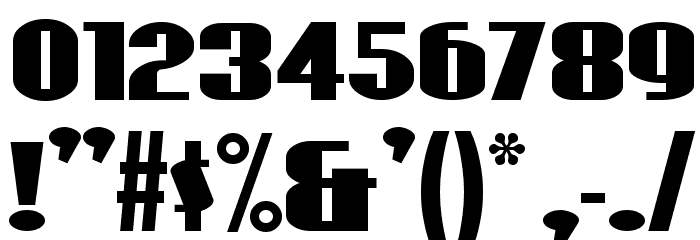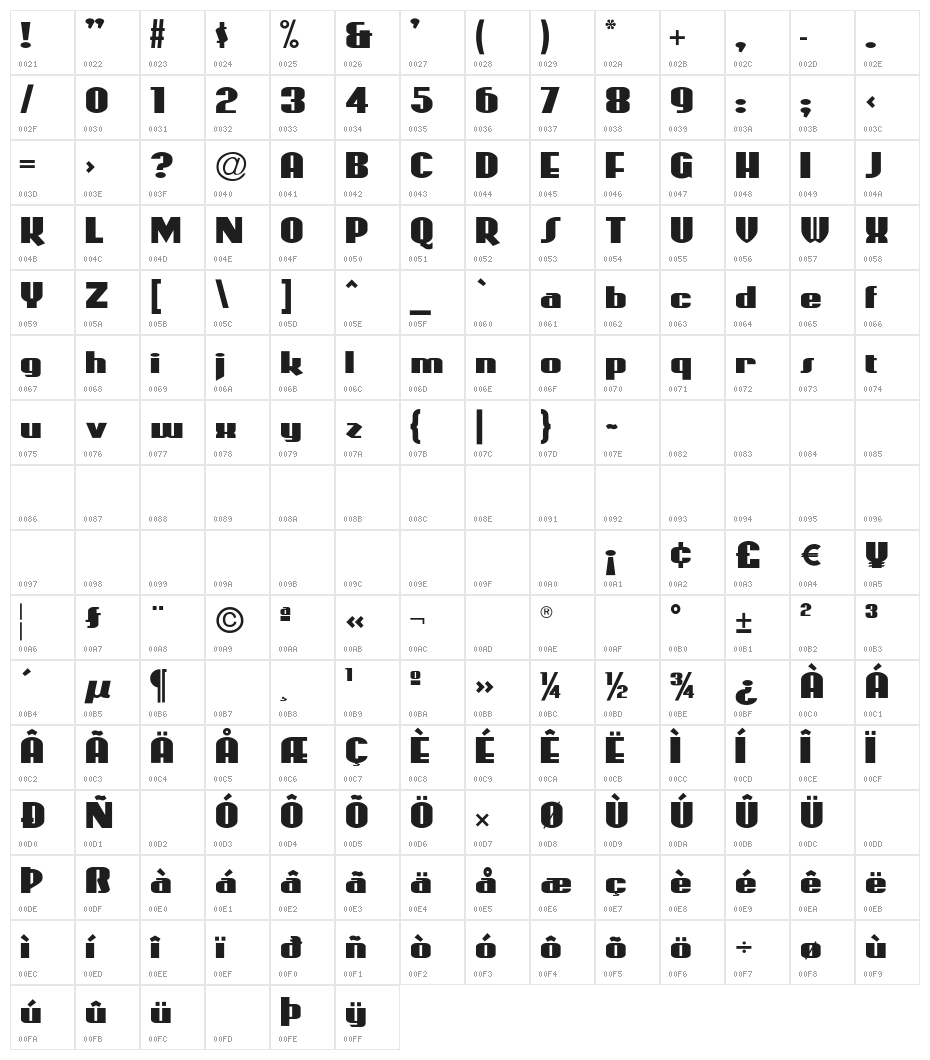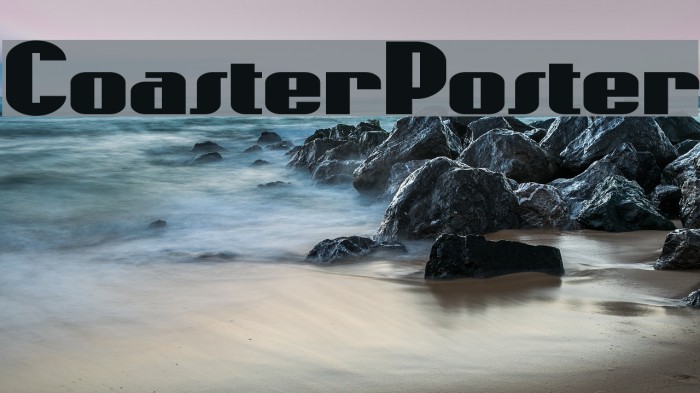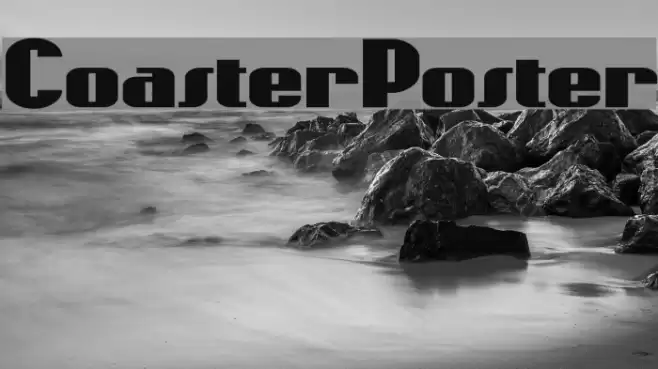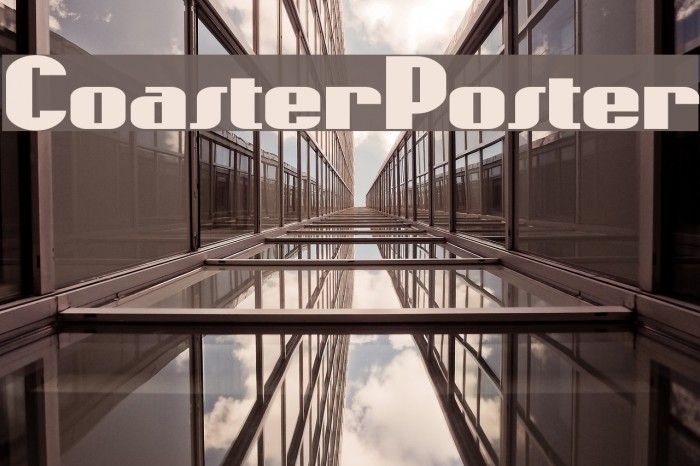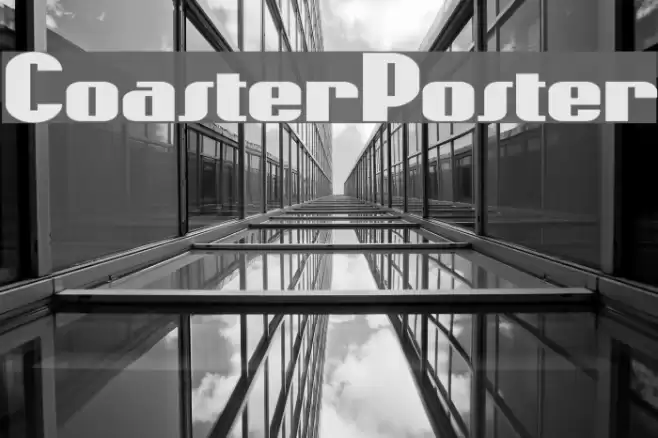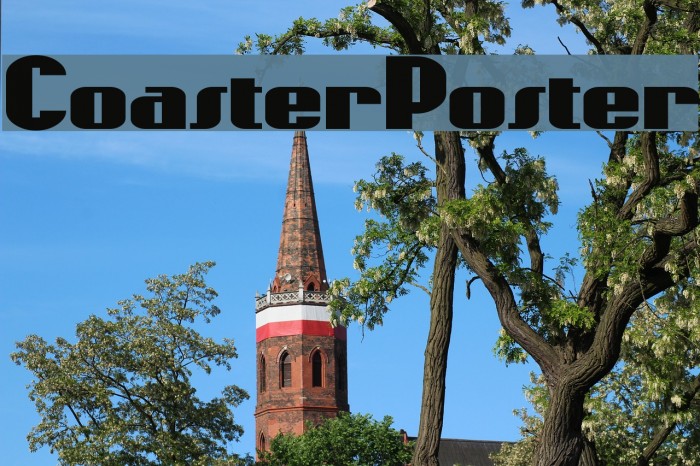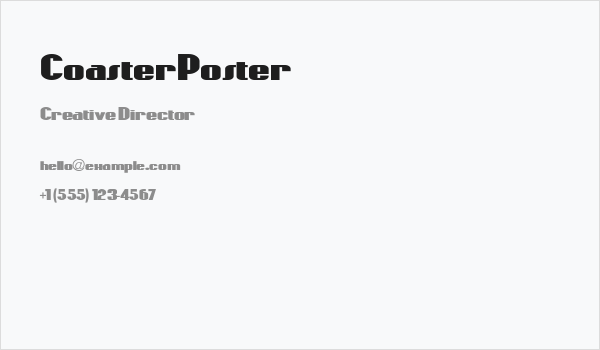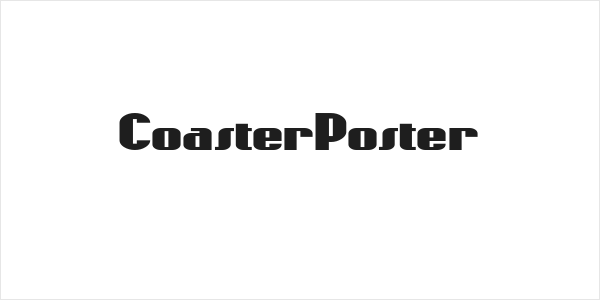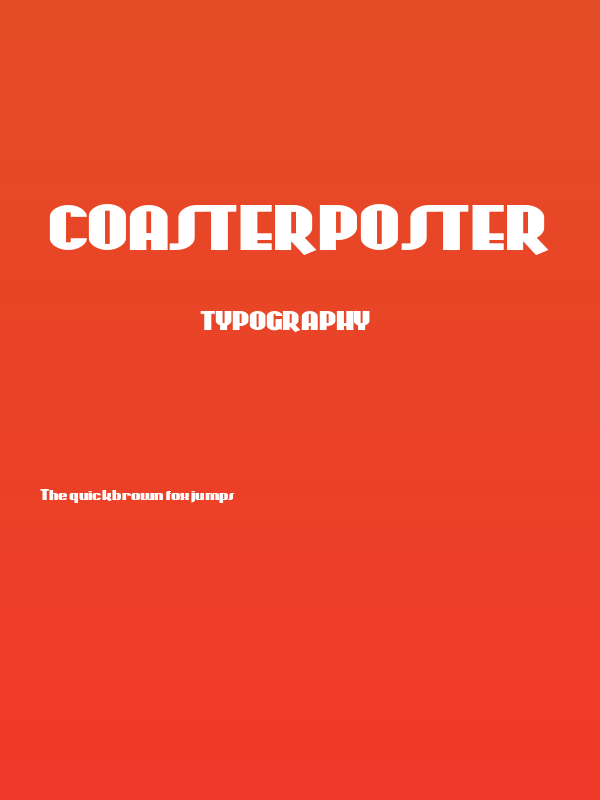
CoasterPoster Font
CoasterPoster Description
This bold, decorative font features strong geometric shapes with a distinct, modern flair. The uppercase letters are characterized by their thick, blocky forms, while the lowercase letters maintain a similar weight, offering a cohesive look. The numbers are equally bold, ensuring visibility and impact. Special characters are designed with the same attention to detail, making them suitable for various design needs. The font's style is reminiscent of vintage poster typography, yet it maintains a contemporary edge, making it versatile for both retro and modern projects.
| Proposed Projects | Ideal for posters, headlines, branding, and any project requiring a strong visual impact. |